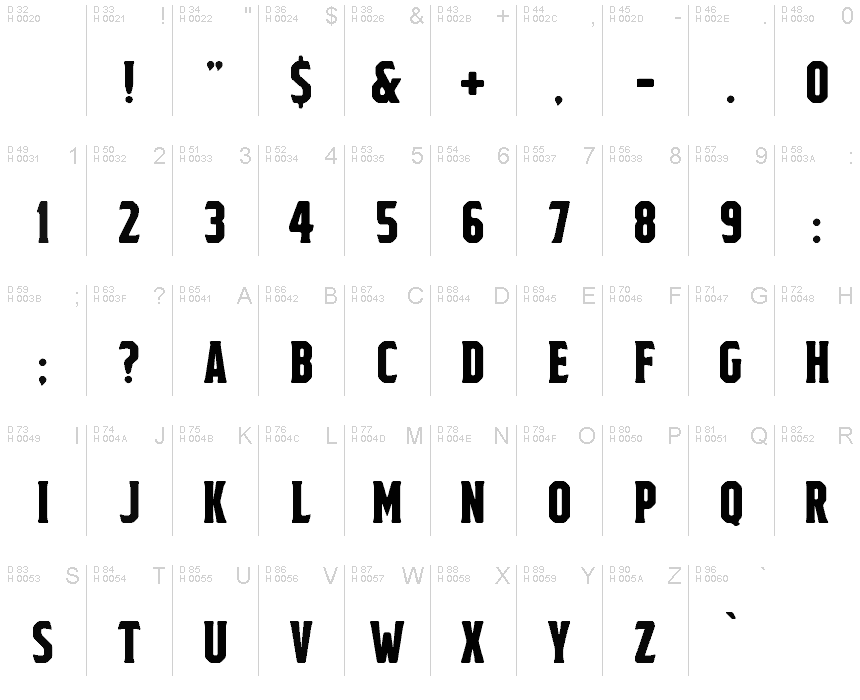
Lez Champs Regular
This is a bold display font. For logos, names and signs.
Lez Champs Regular is a font by HENRIavecunK, designed by HENRIavecunK in 2018.